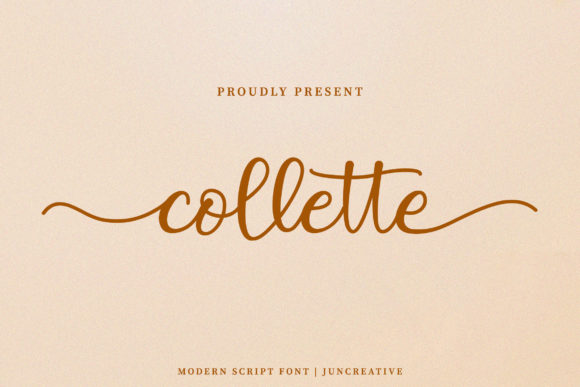
Unleash the beauty of your photography logo with Collette Font, the script font designed to elevate your brand's visual identity. With its clean, thin, and smooth lines, Collette exudes a captivating elegance that will leave a lasting impression on your audience.
Crafted by the skilled hands of Juncreative, Collette is an organic calligraphy font that oozes sophistication and charm. Its delicate strokes and graceful curves lend a touch of femininity and romance, making it the perfect choice for photographers seeking a logo that reflects their artistic flair.
Collette's versatility extends beyond photography logos; it seamlessly complements wedding invitations, branding projects, social media posts, and more. Its ability to blend seamlessly into various design aesthetics makes it a must-have for designers and creatives alike.